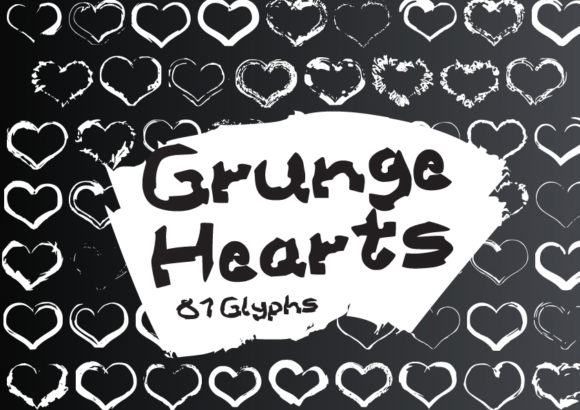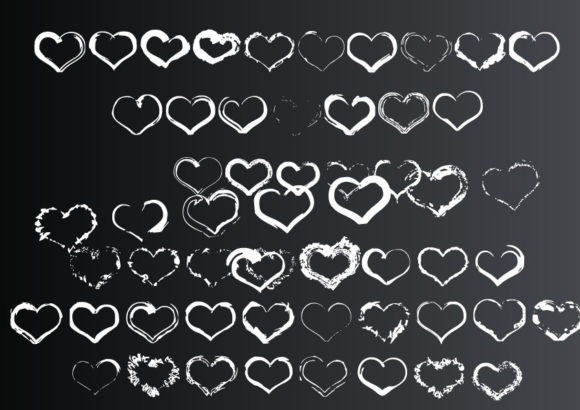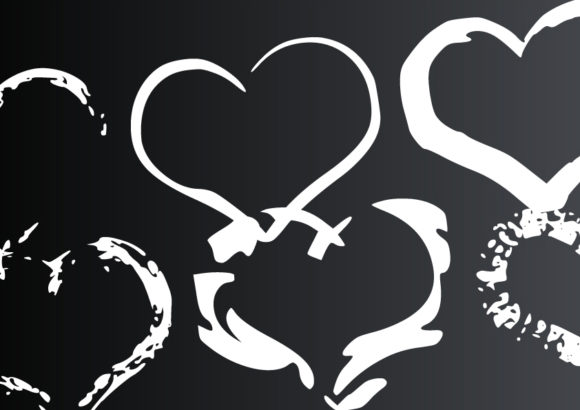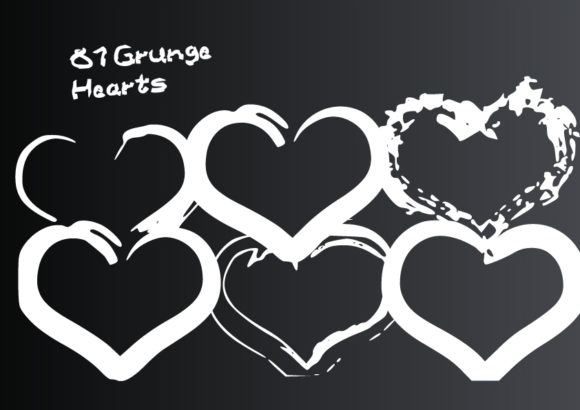
About Grunge Hearts Font
Grunge Hearts sounds like a fantastic dingbats font for adding a touch of grunge and uniqueness to your projects. With a wide selection of cute hearts to choose from, you have the opportunity to create stunning and eye-catching designs. Here are some ideas on how you can make the most of Grunge Hearts:
1. Card Making: Use the grunge hearts to create handmade greeting cards for various occasions such as birthdays, anniversaries, or Valentine’s Day. Arrange the hearts in different sizes and styles to form unique patterns or create focal points on your cards. Experiment with layering and mixing the grunge hearts with other elements like text, illustrations, or embellishments.
2. Scrapbooking: Incorporate the grunge hearts into your scrapbook layouts to add texture and visual interest. Use them as decorative elements, photo frames, or borders. You can create themed pages like love and romance, family, or special events, where the grunge hearts serve as focal points or accents.
3. Digital Designs: If you’re working on digital designs such as social media graphics, website banners, or digital art, the grunge hearts can bring an edgy and unique touch. Arrange the hearts in different compositions, apply filters or layer styles to create a grungy effect, or combine them with other graphic elements to create visually captivating designs.
4. Mixed Media Projects: Incorporate the grunge hearts into mixed media projects, combining different art forms and materials. Use them in collage, painting, or as stencils to create unique textures and layers. Apply paints, inks, or other mediums around or through the hearts to achieve a grungy and artistic look.
5. Textile and Fabric Crafts: Transfer or paint the grunge hearts onto fabrics to create custom-designed textiles. You can use them to make personalized clothing, tote bags, pillows, or other fabric crafts. Combine the grunge hearts with fabric dyes, paints, or embroidery to add extra details and make your projects truly stand out.
Remember to experiment with different sizes, styles, and combinations of grunge hearts to achieve the desired effect. Whether you’re creating physical or digital projects, Grunge Hearts can bring a unique and edgy vibe to your designs. Let your creativity guide you, and have fun exploring the possibilities this dingbats font offers!